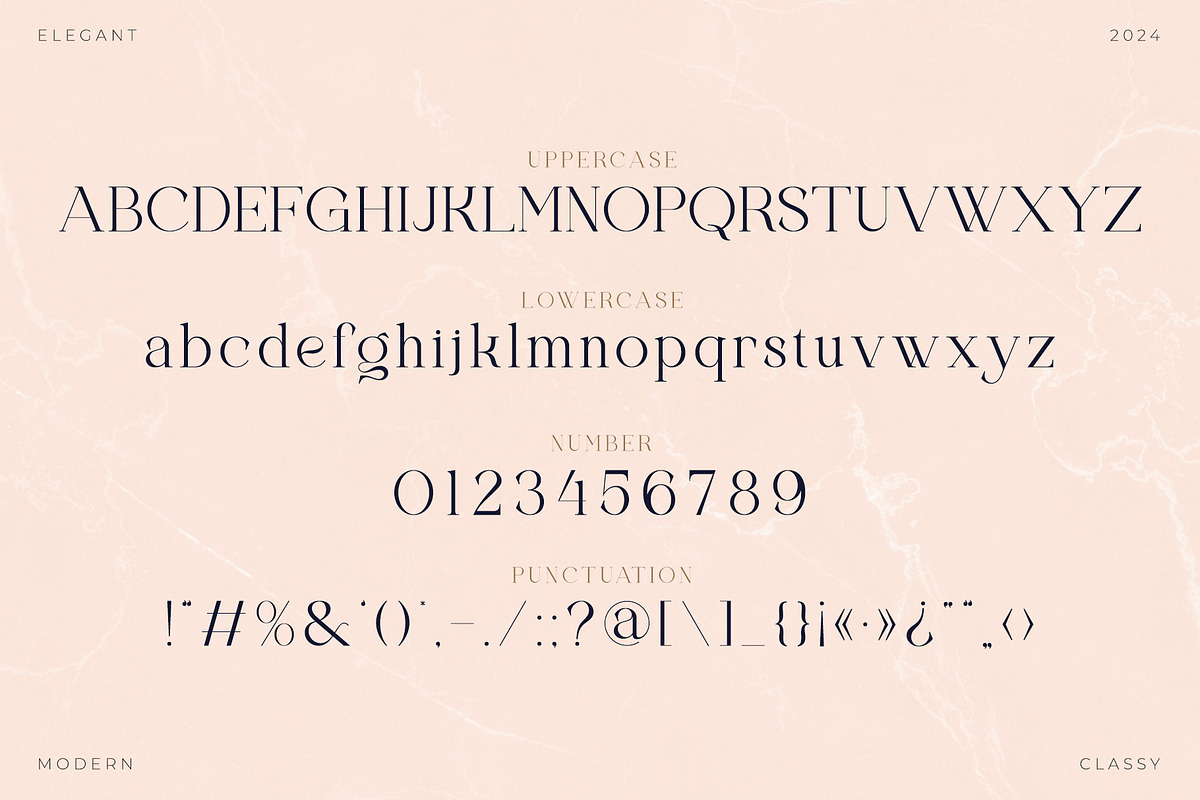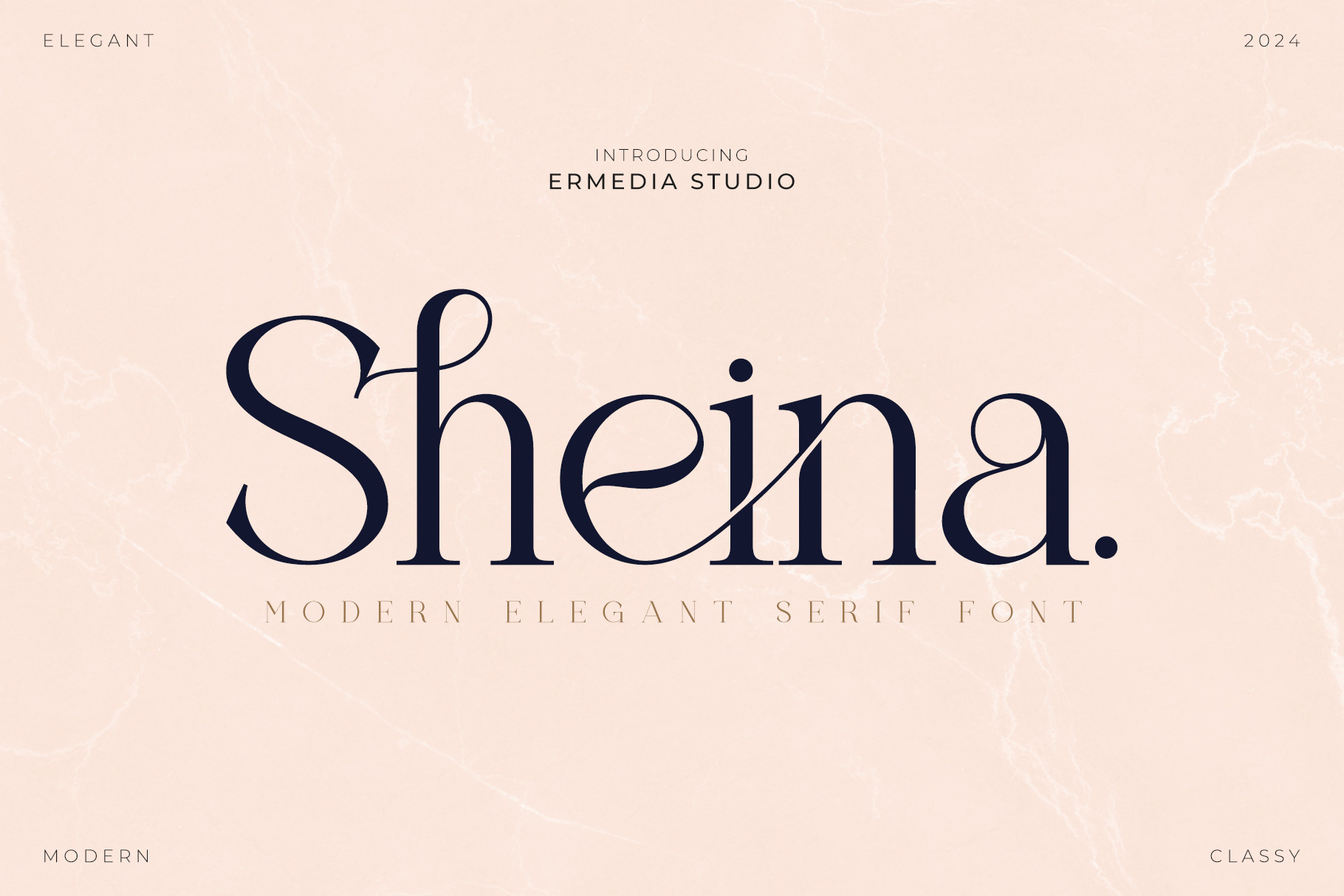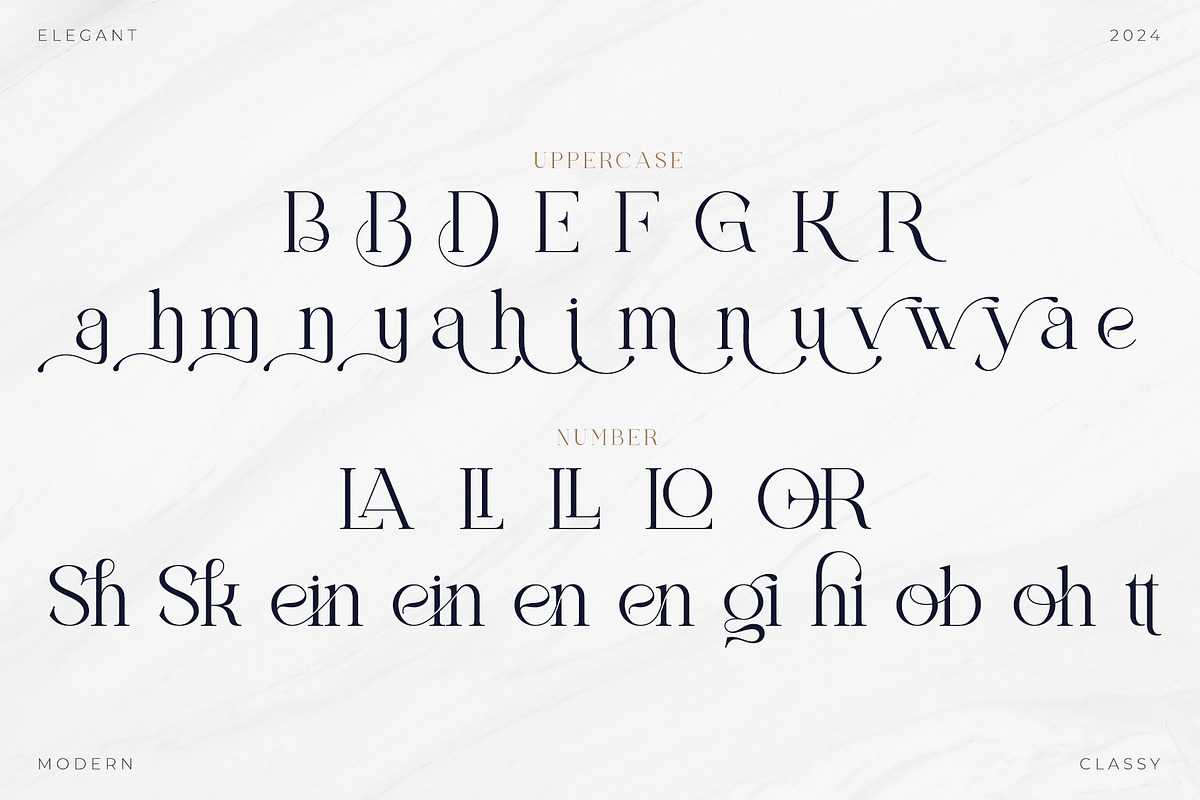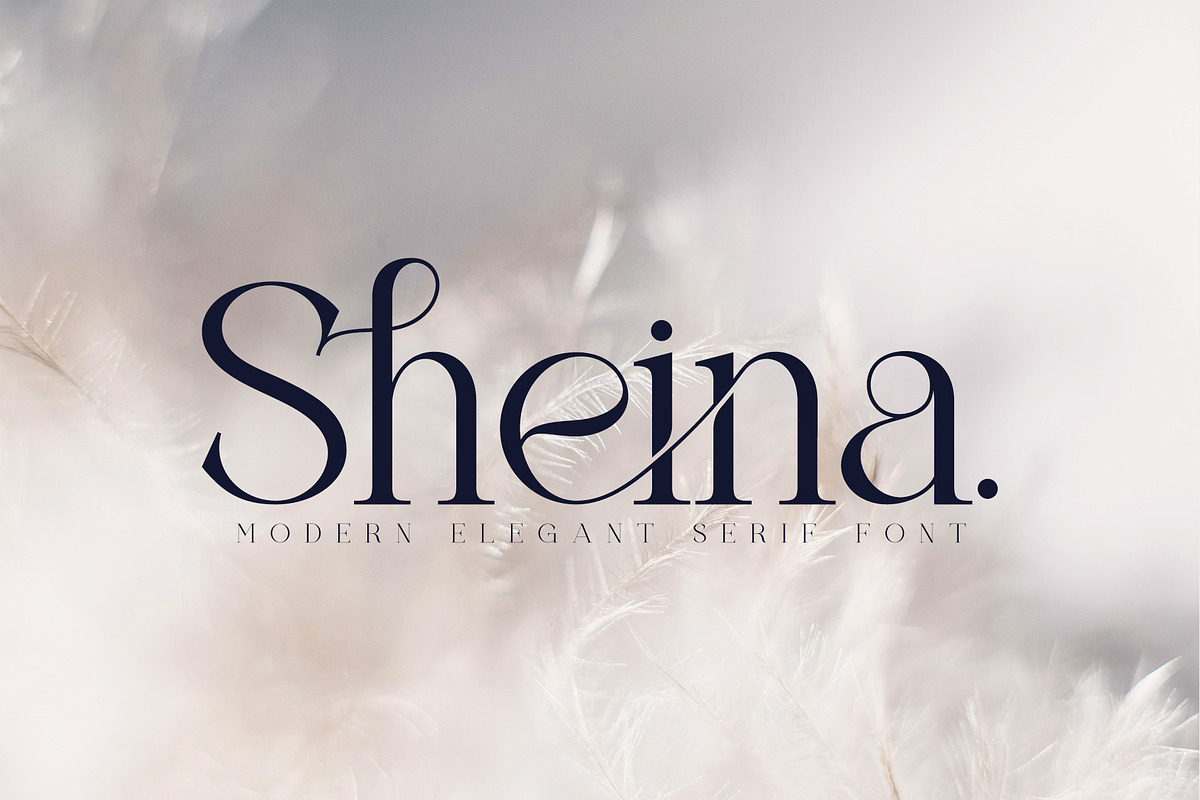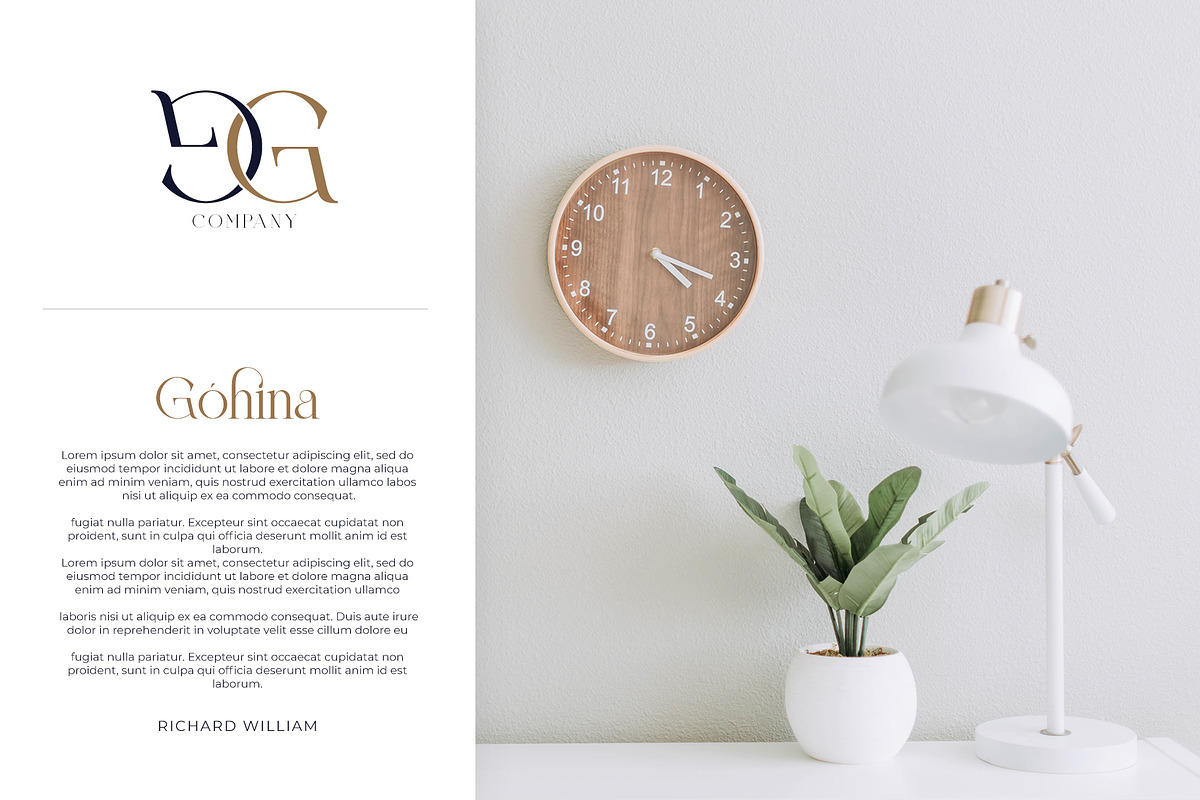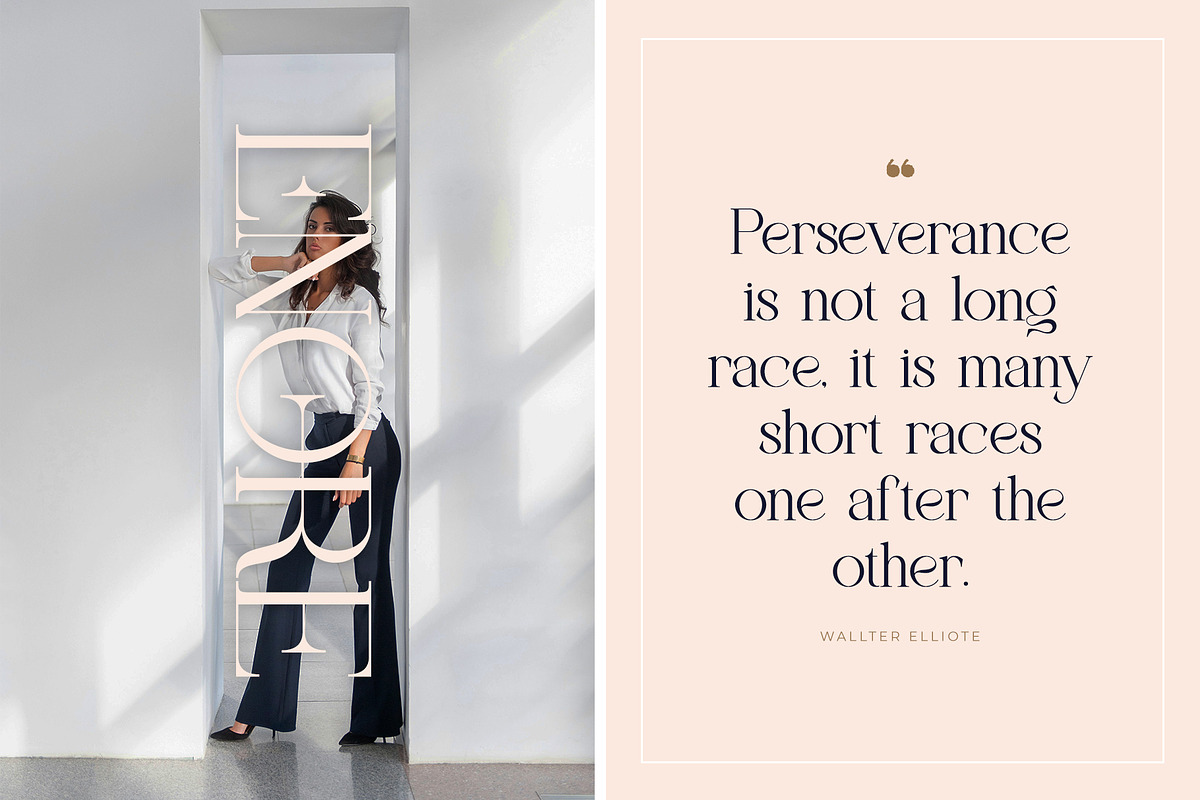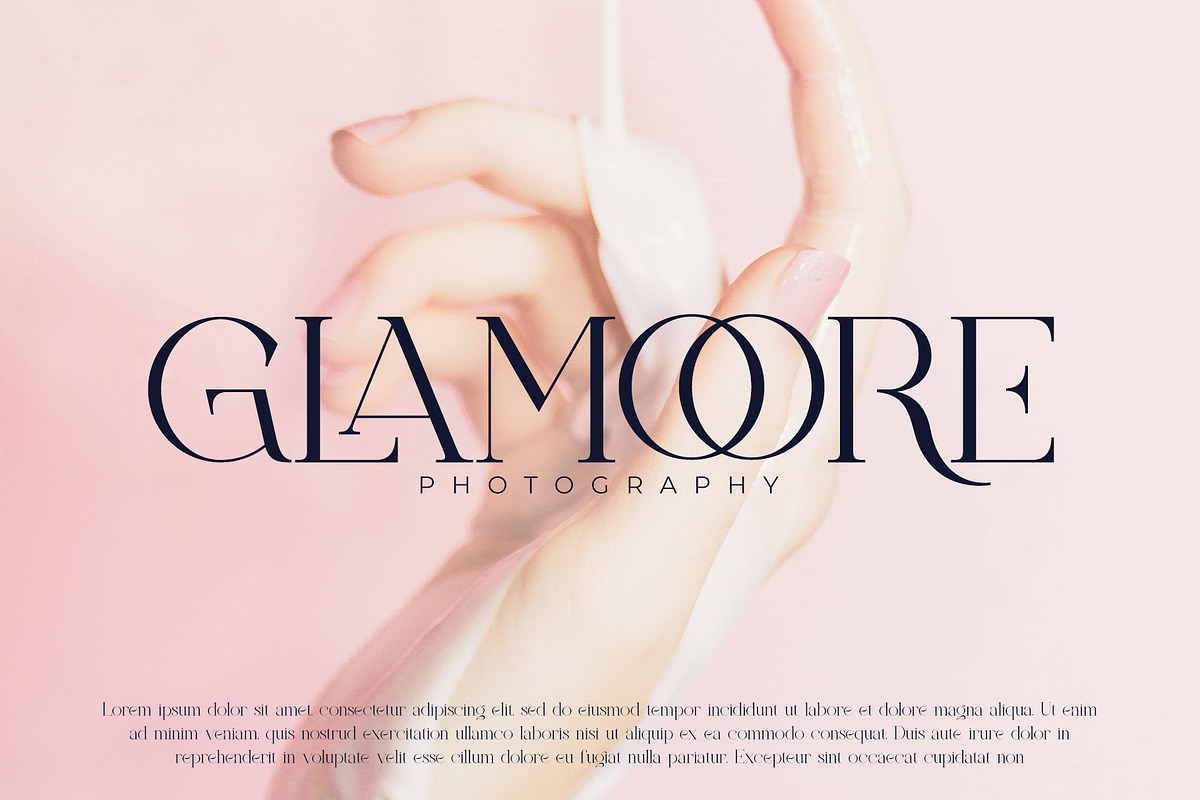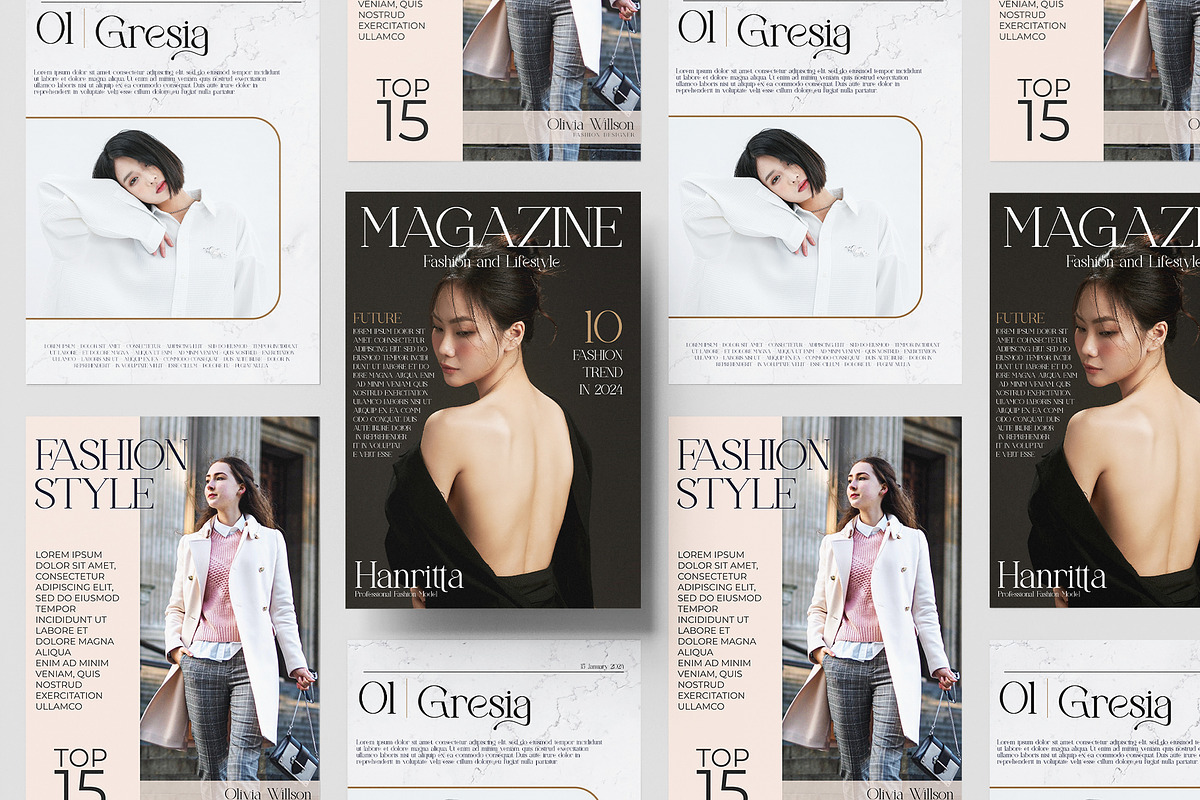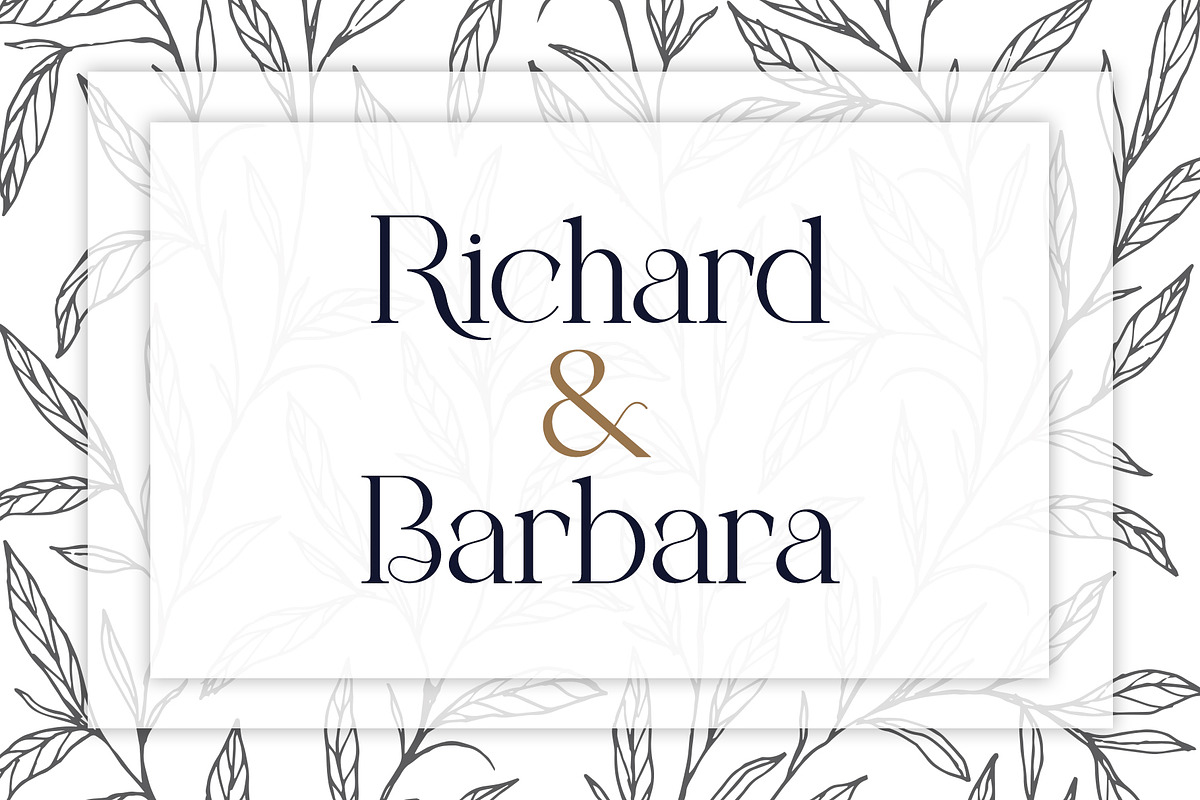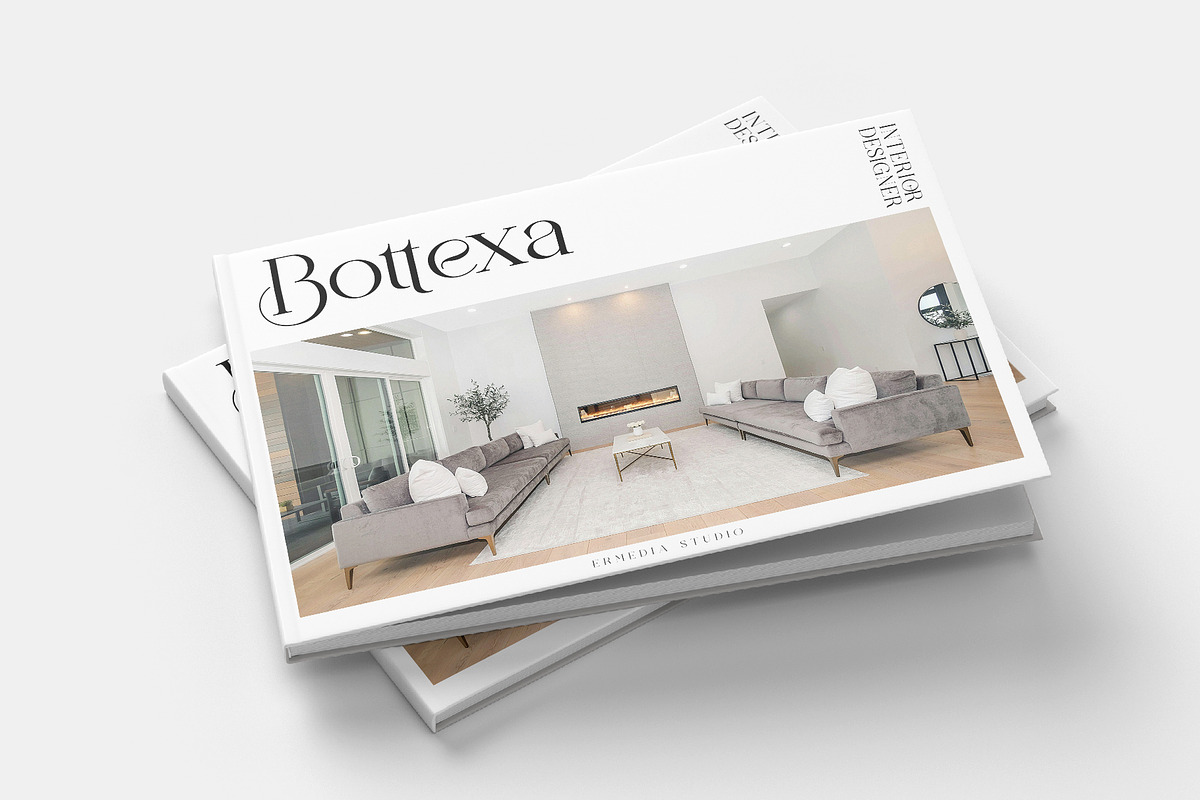
Sheina - Elegant Serif Font
Introducing the Sheina Serif Font: is an elegant serif font, and is stylish and classy. He has a beautiful character. most suitable for use as a display for titles, invitation card designs, company logos, film names, business cards, book titles, brand names and various other designs. Sheina Serif is a smooth serif font that exudes sophistication and elegance. This charming and stylish font makes it the perfect partner for any project.